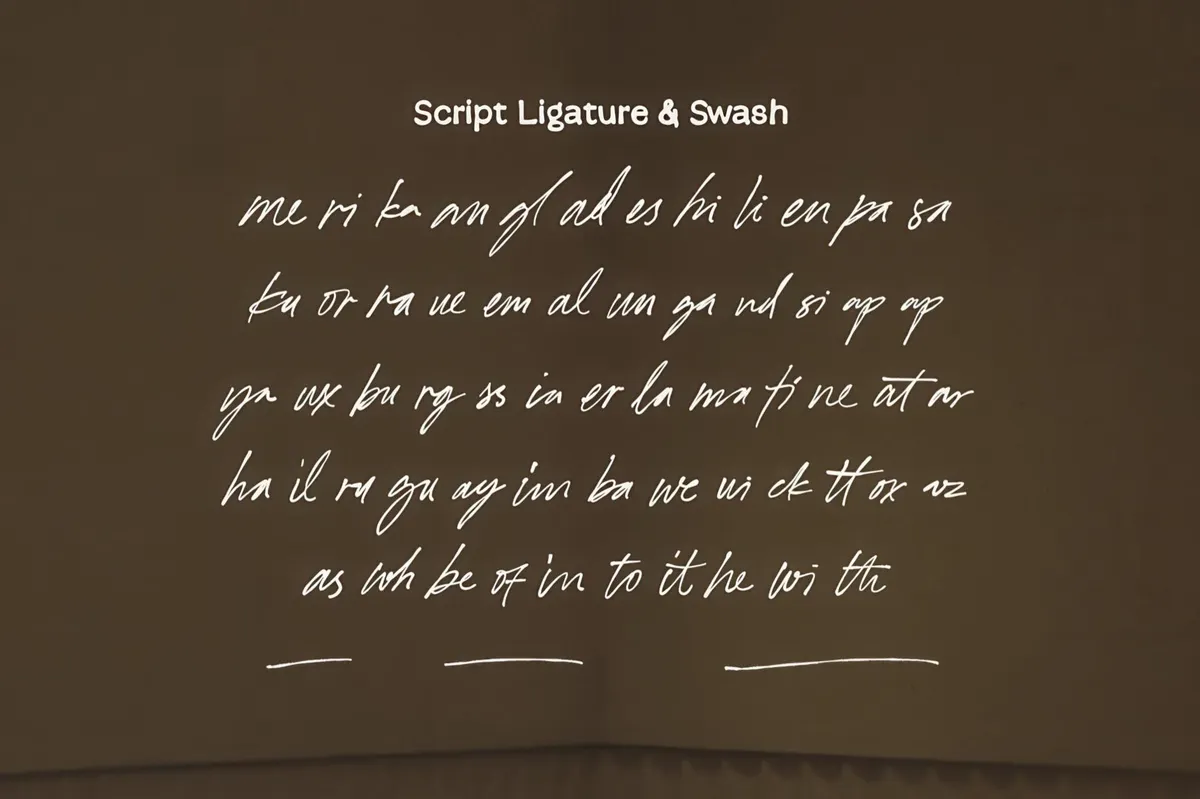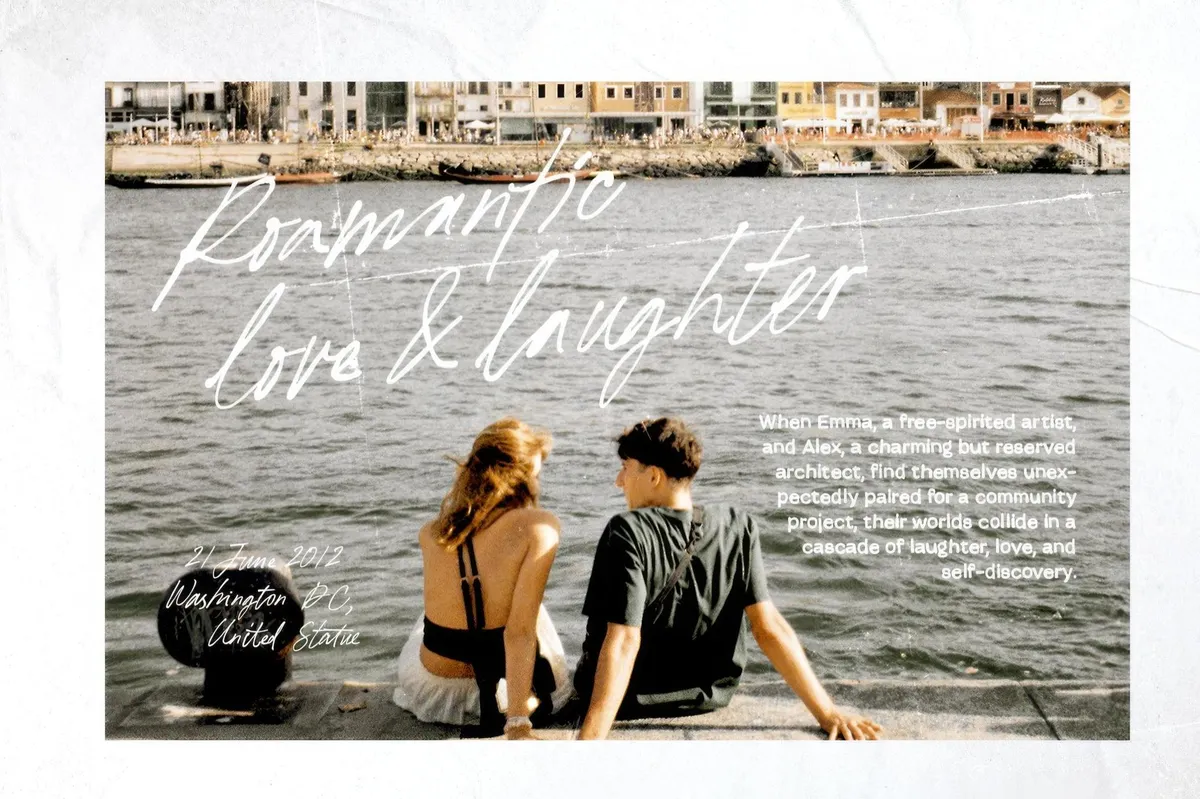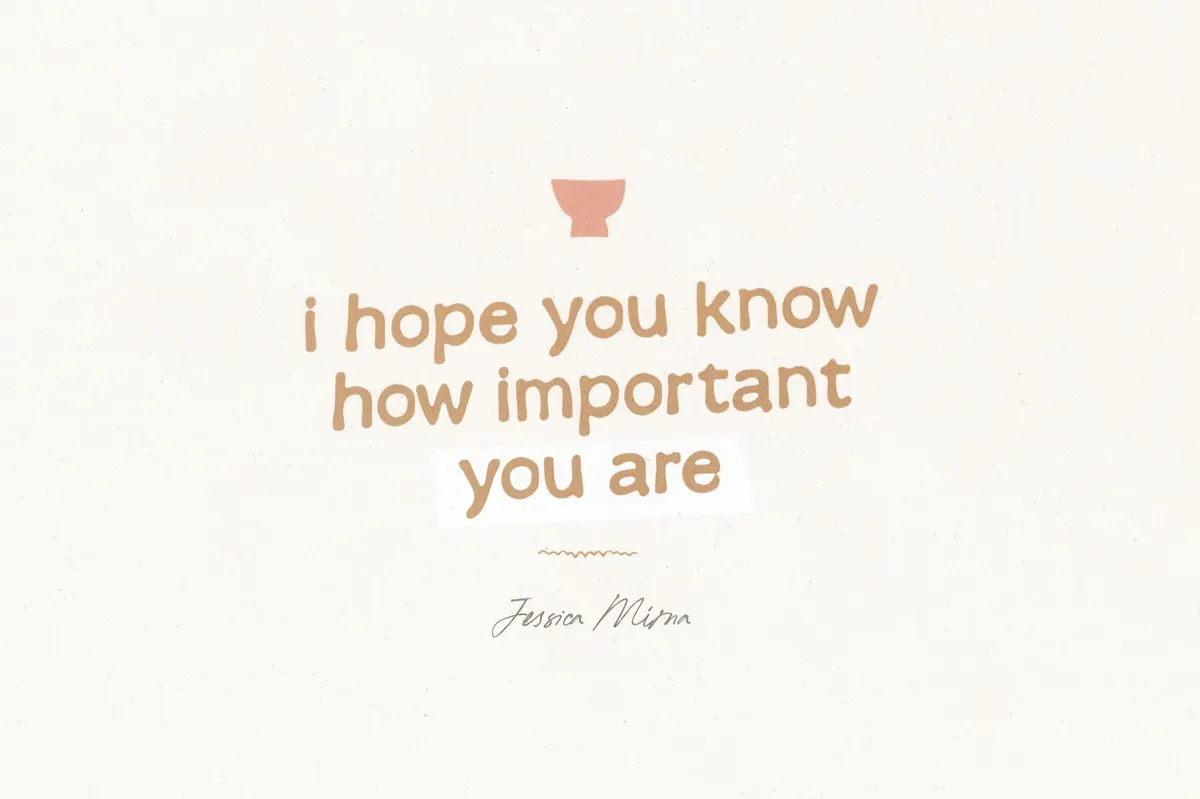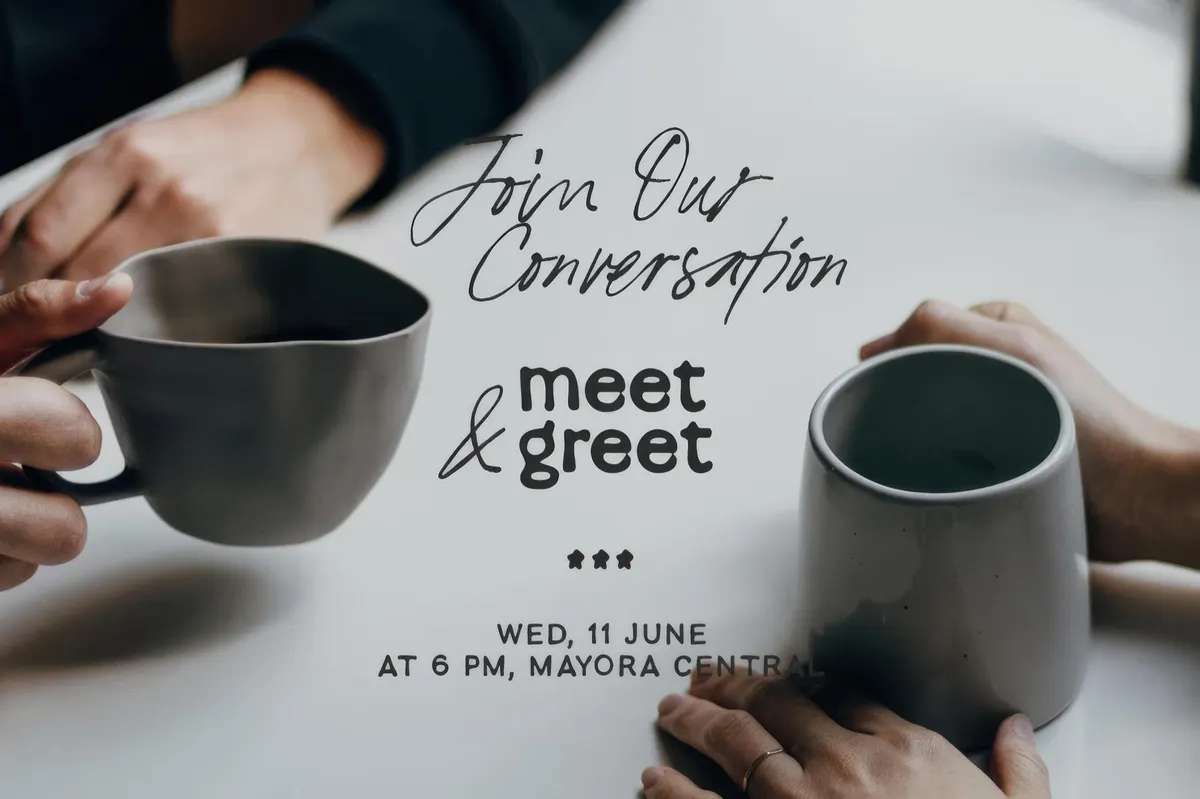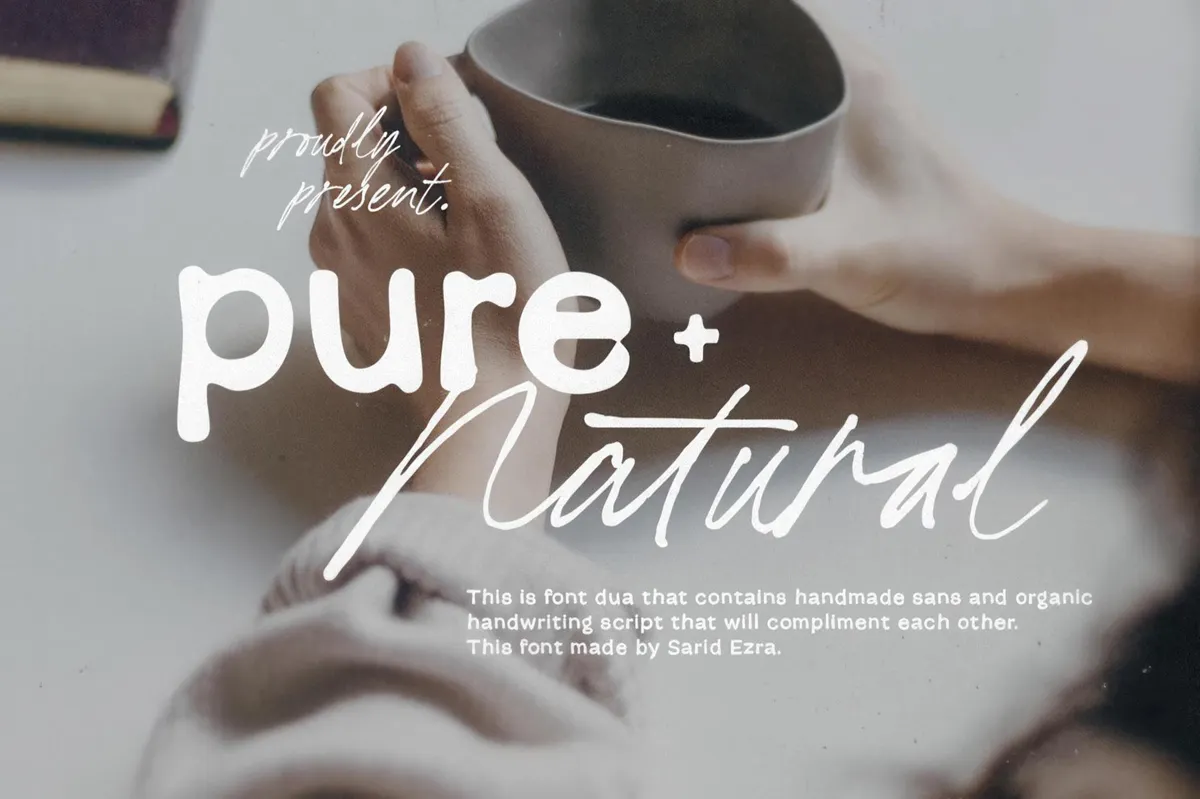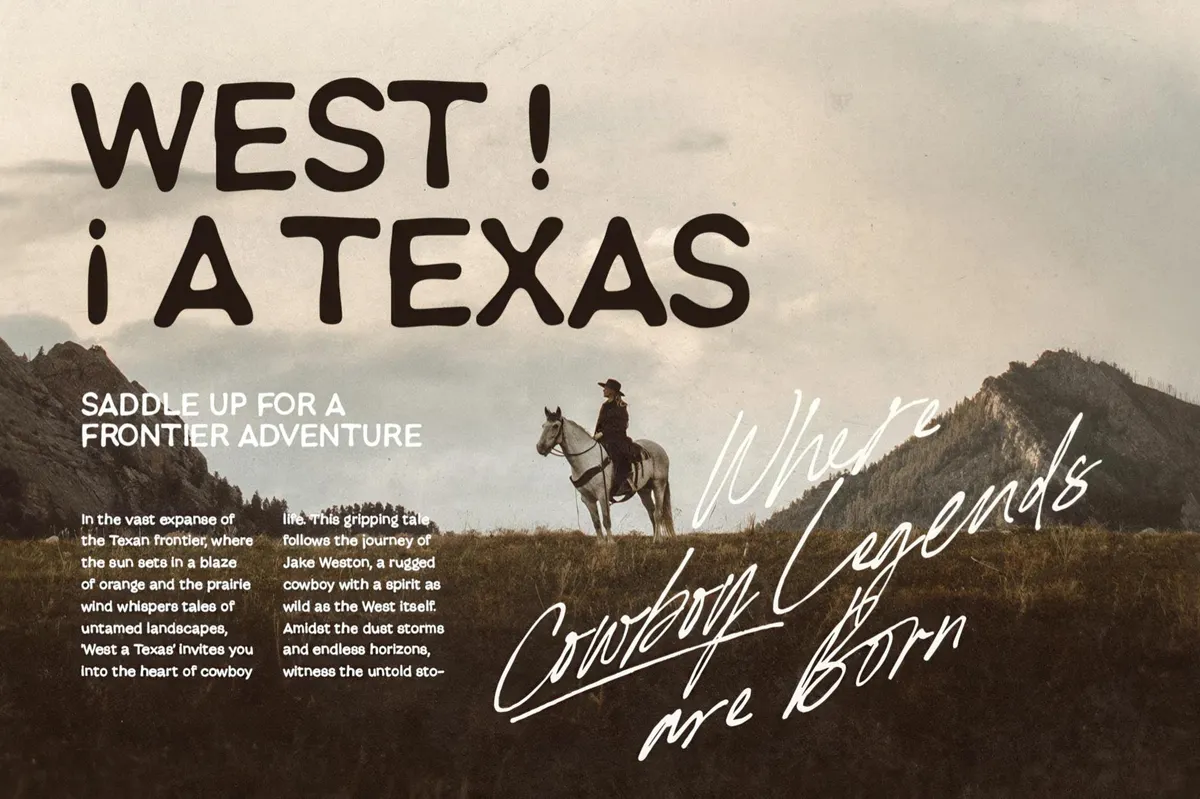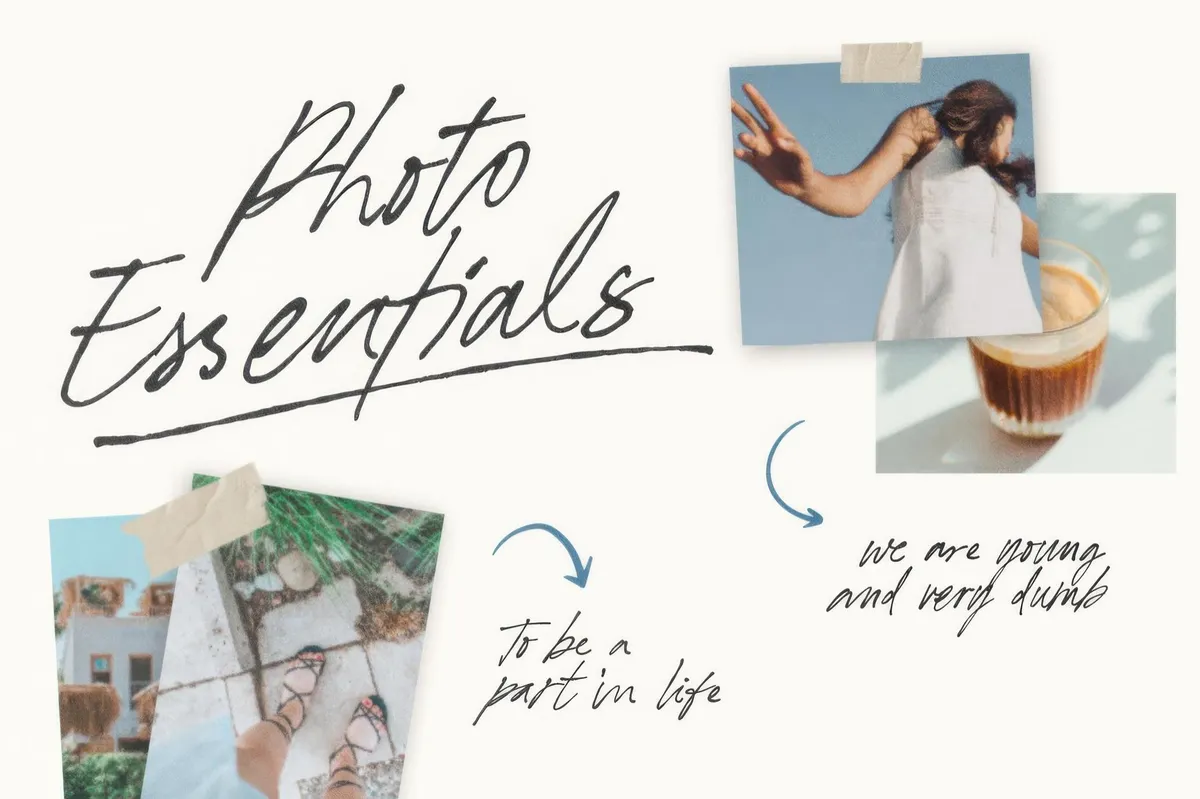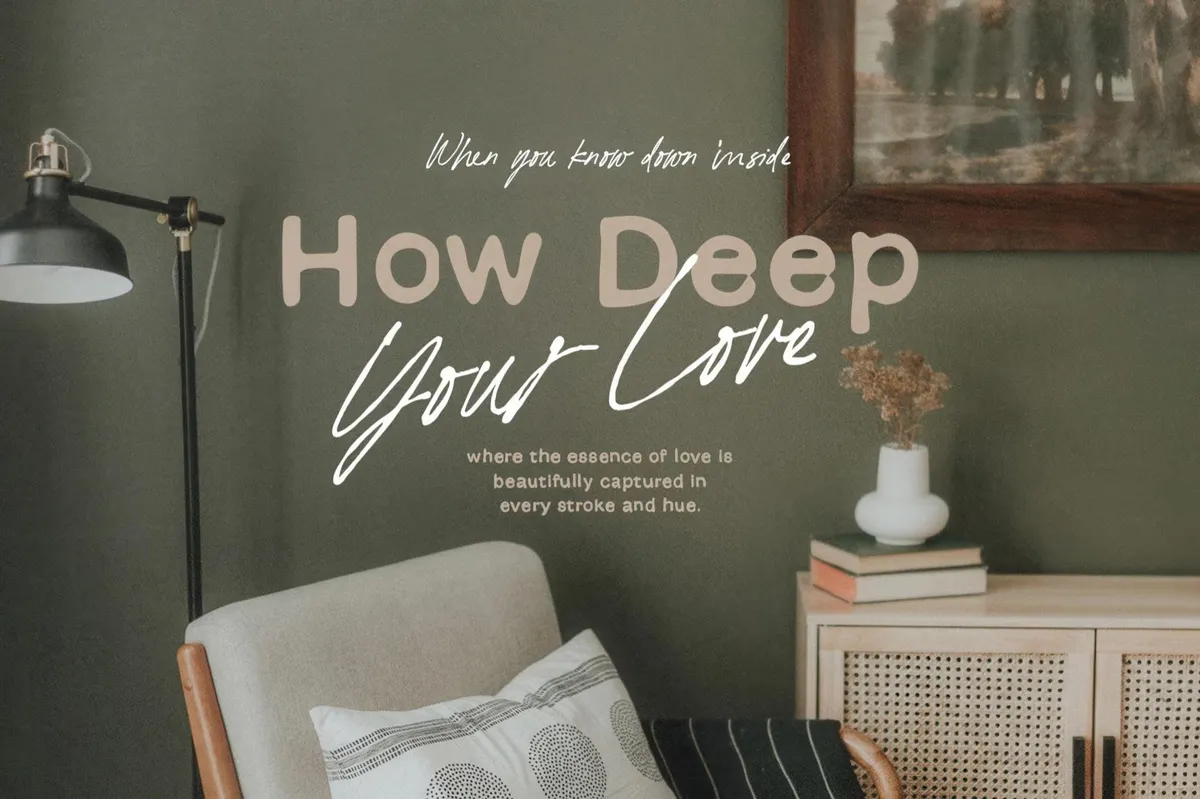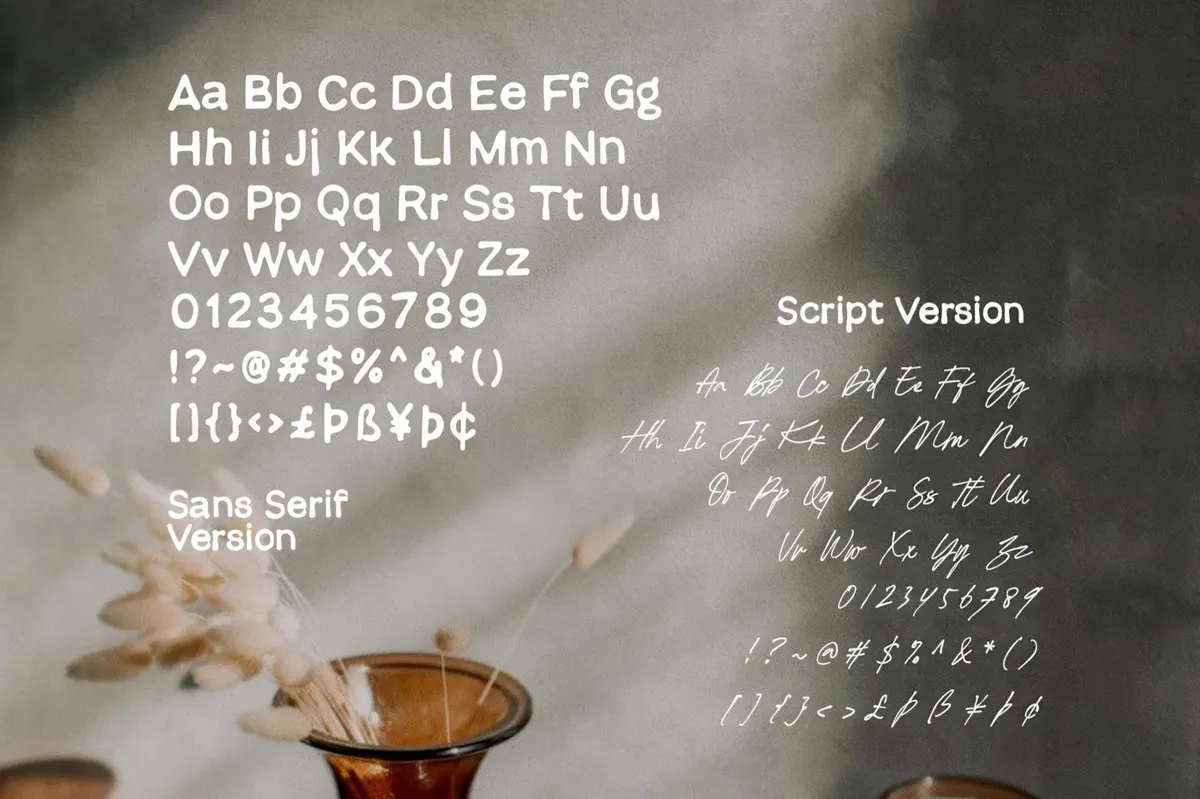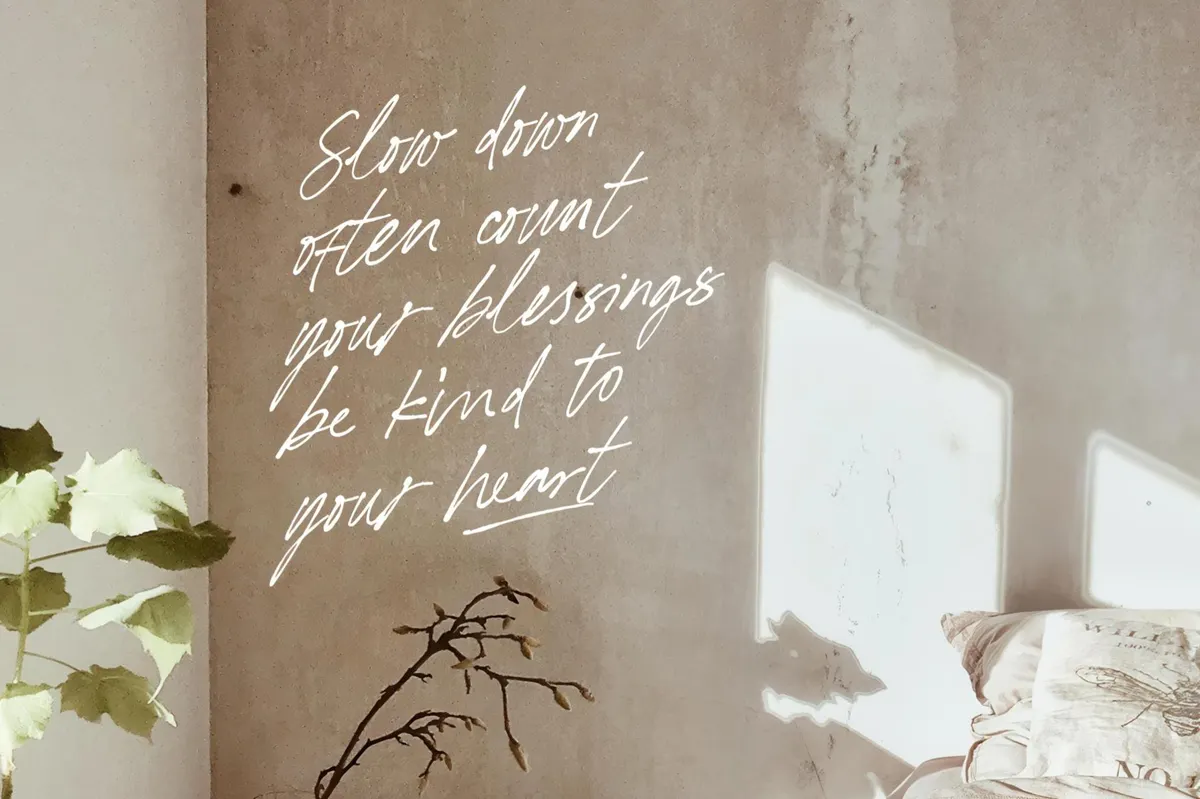
Pure Nature — Organic Font Duo
Pure Natural combines a handmade sans serif with an organic handwriting script, producing a warm, authentic, and approachable vibe. The pairing is thoughtfully designed to complement each other, making it ideal for projects focusing on natural, wholesome aesthetics. The duo is perfect for branding work in wellness, artisanal crafts, or eco-conscious industries, as well as for invitations, social media graphics, or product packaging. Each font provides a complete character set; the script also has ligatures and swashes.